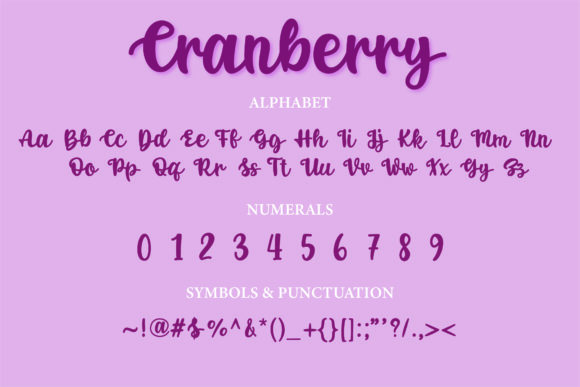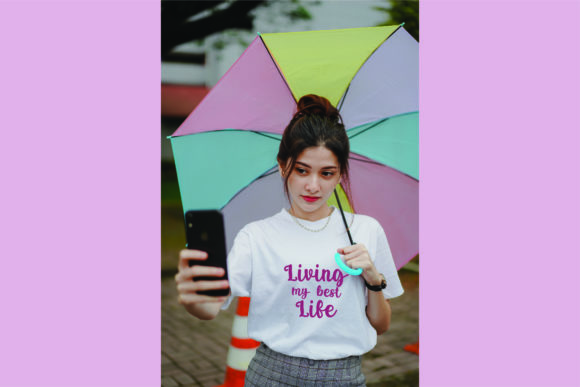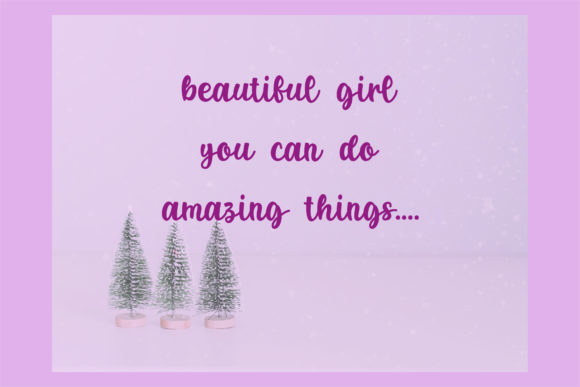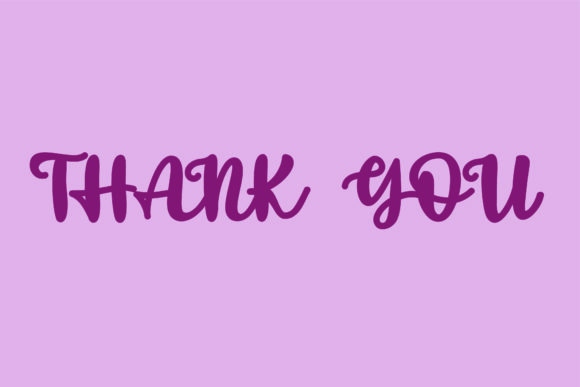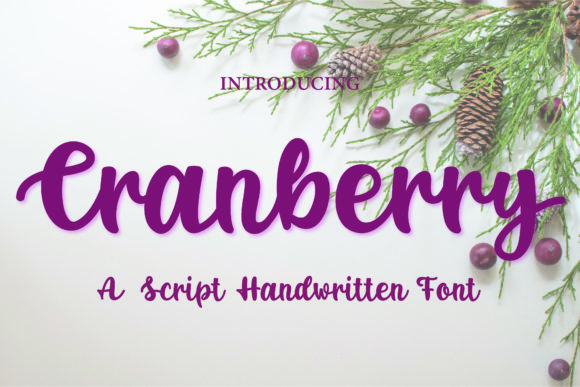
Cranberry Font: Elevate Your Designs with Elegance and Class
Are you looking for a font that adds a touch of sophistication and refinement to your designs? Look no further than Cranberry, a lovely and delicate script font that exudes elegance and class. Crafted with precision and attention to detail, Cranberry is the perfect choice for designers and crafters seeking a beautiful and refreshing look for their projects.
The Story Behind Cranberry Font
Cranberry Font was particularly designed for those who need a font that stands out from the crowd, yet remains understated and refined. The creators of Cranberry aimed to craft a font that would be versatile enough to be used in a variety of design applications, from wedding invitations and stationery to branding and advertising materials.
Key Features of Cranberry Font
• Delicate and Elegant: Cranberry Font boasts a delicate and elegant appearance, making it perfect for designs that require a touch of sophistication.
• Script Style: As a script font, Cranberry features flowing connections between letters, creating a beautiful and harmonious look.
• Versatile: Cranberry can be used in a range of design applications, from digital to print, and is suitable for both personal and commercial projects.
• Easy to Read: Despite its delicate nature, Cranberry is surprisingly easy to read, making it perfect for body text and headings.
Uses of Cranberry Font
Cranberry Font is an incredibly versatile font that can be used in a variety of design applications, including:
• Wedding Invitations and Stationery: Add a touch of elegance and sophistication to your wedding invitations, stationery, and other paper goods.
• Branding and Advertising: Use Cranberry to create beautiful and eye-catching branding materials, such as logos, business cards, and brochures.
• Digital Designs: Cranberry can be used in digital designs, such as social media graphics, website headers, and email newsletters.
• Crafting and DIY Projects: Perfect for crafters and DIY enthusiasts, Cranberry can be used in a range of projects, from handmade cards to scrapbooking.
Tips for Using Cranberry Font
To get the most out of Cranberry Font, here are a few tips to keep in mind:
• Pair with Bold Fonts: Pair Cranberry with bold, sans-serif fonts to create a striking contrast and add visual interest to your designs.
• Use in Moderation: While Cranberry is a beautiful font, it can be delicate and may get lost in busy designs. Use it in moderation to create a clear visual hierarchy.
• Experiment with Colors: Cranberry looks beautiful in a range of colors, from soft pastels to rich jewel tones. Experiment with different colors to find the perfect combination for your design.
Cranberry Font is a stunning script font that adds a touch of elegance and class to any design. With its delicate and refined appearance, versatility, and ease of use, Cranberry is the perfect choice for designers and crafters seeking a beautiful and refreshing look for their projects. Whether you’re creating wedding invitations, branding materials, or digital designs, Cranberry is sure to impress.